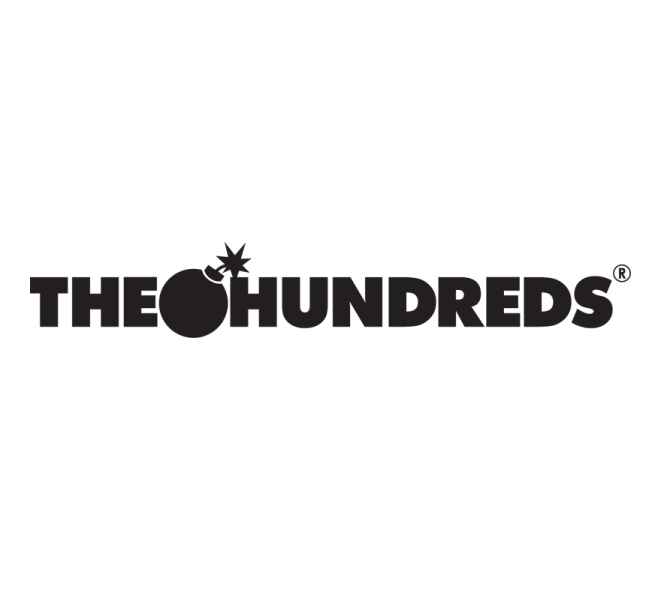
The Hundreds Logo Font
ApparelThe Hundreds is a streetwear brand founded in 2003 by Bobby Kim and Ben Shenassafar. The brand's name is a reference to the hundreds of cultural influences that shape its designs.
The Hundreds logo features the brand's lettering in a geometric sans serif Futura Extra Bold. Paul Renner created the first sketches of Futura in 1928, and they were loosely based on the basic shapes of a circle, triangle, and square. Futura when first introduced in the 1920s was stunning, tasteful, and revolutionary. Even now it is still a popular option for typography to convey strength, elegance, and intellectual clarity.